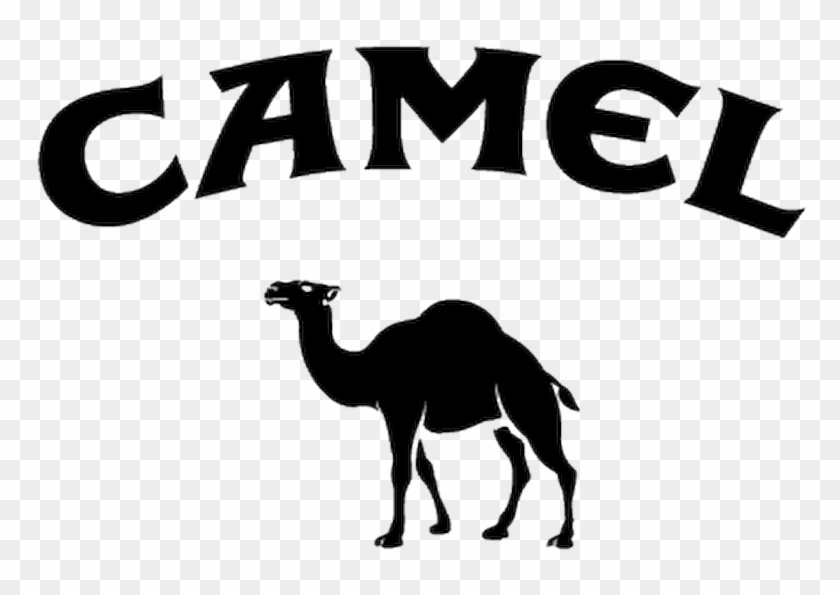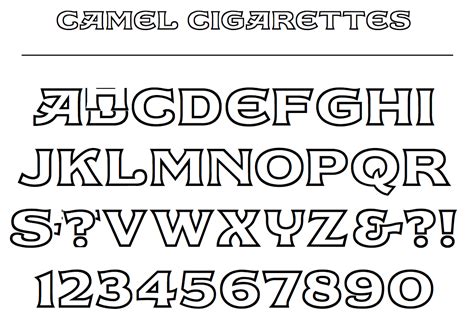
Camel Cigarette Font - Iqbal camel is a fancy type font that can be used on any device such as pc, mac, linux, ios and. The iqbal camel regular font contains 44 beautifully designed characters. February 01, 2019iqbal camel font | dafont.com